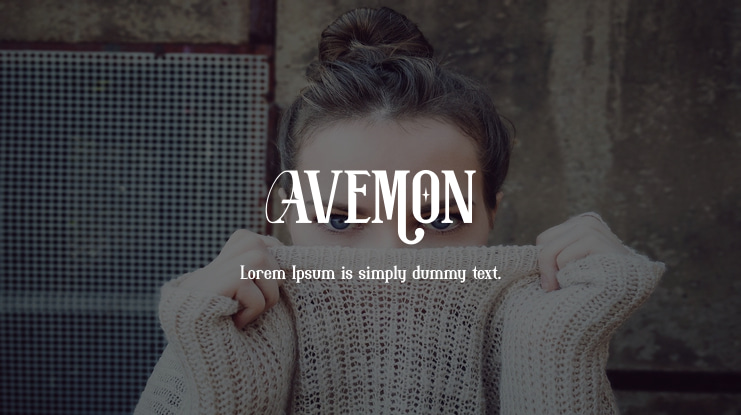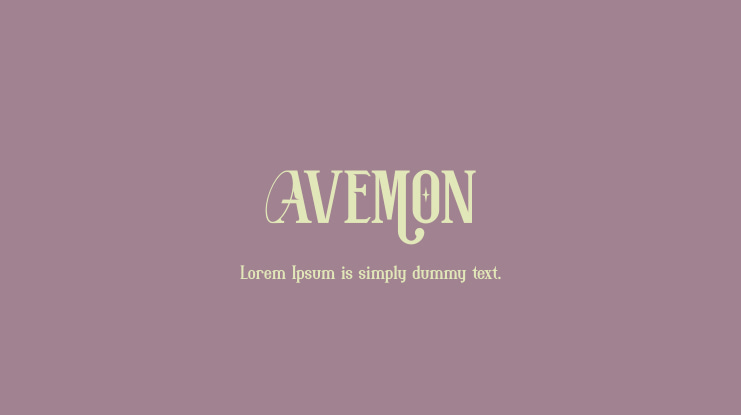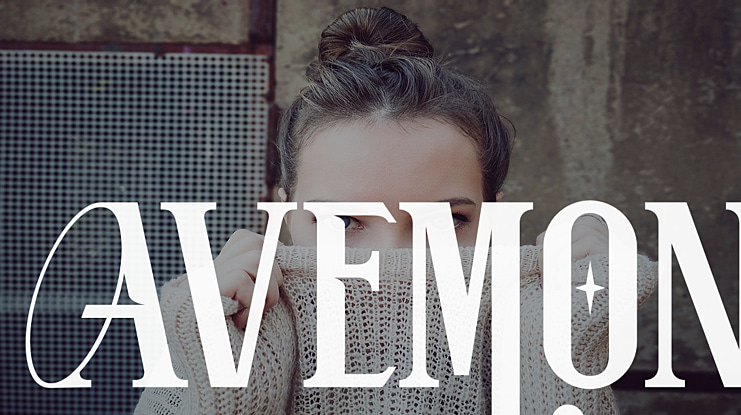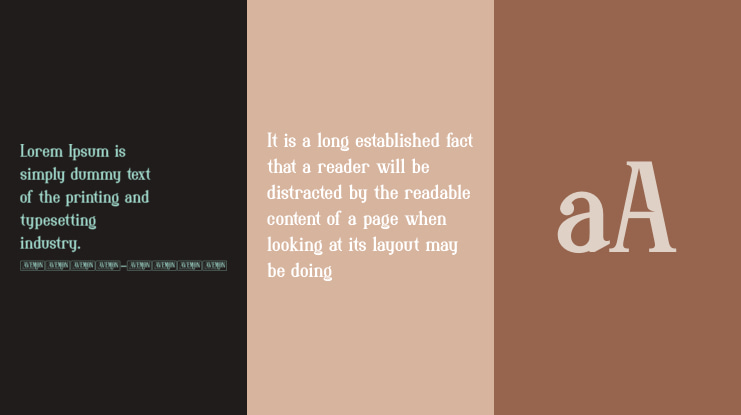
AVEMON Font Family
AVEMON is the elegant classic serif style with uppercase and lowercase feel nice balanced. Provide alternates and ligatures font in variant style make the design letter looks nice. Honestly it works perfectly for headlines, logos, posters, packaging, T-shirts and much more.